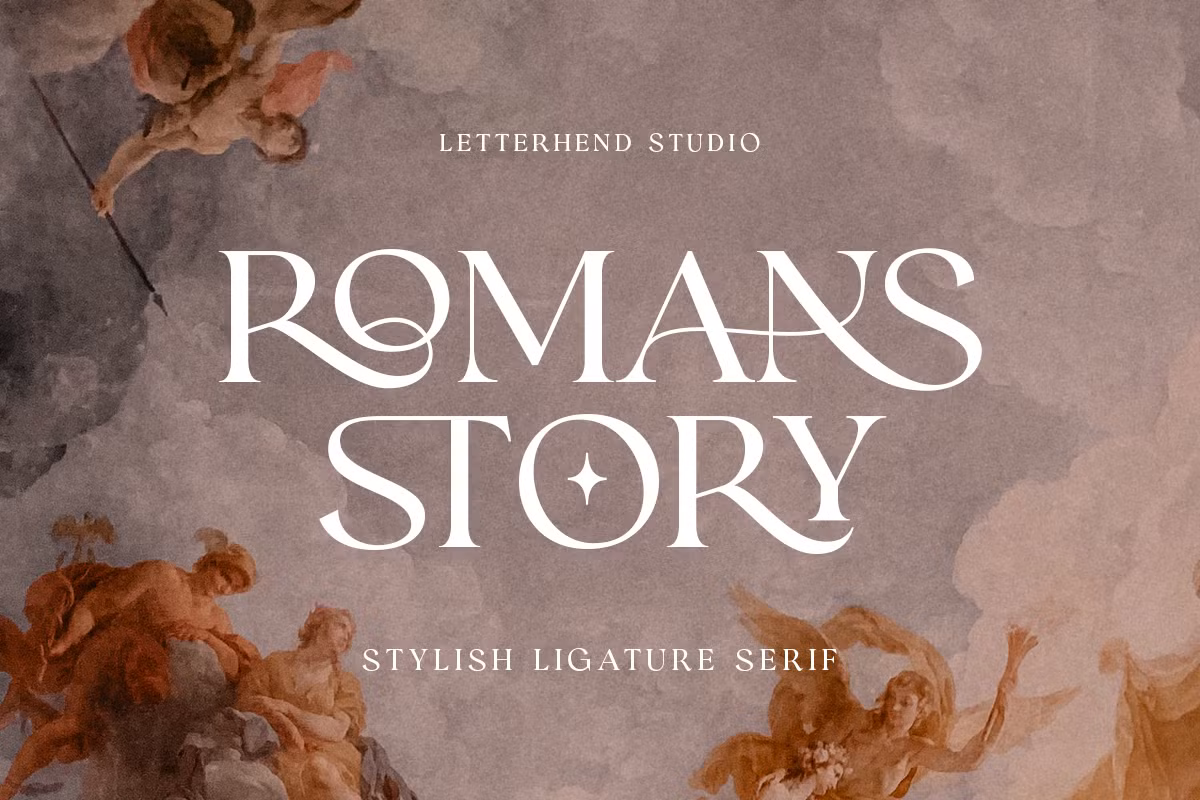
Romans Story is an elegant, ligature serif font that we have crafted meticulously to ensure its high-end quality and luxurious feel. Its unique ligature sets it apart from regular serif fonts, making it a perfect choice for logos, headlines, titles, along with various formal applications such as invitations, labels, magazines, books, greeting/wedding cards, packaging, fashion, make-up, stationery, novels, labels, or for any advertising purposes.
Designer: Letterhend Studio
Glyphs: Numerals and punctuation, multilingual support, ligatures, alternates, PUA encoded